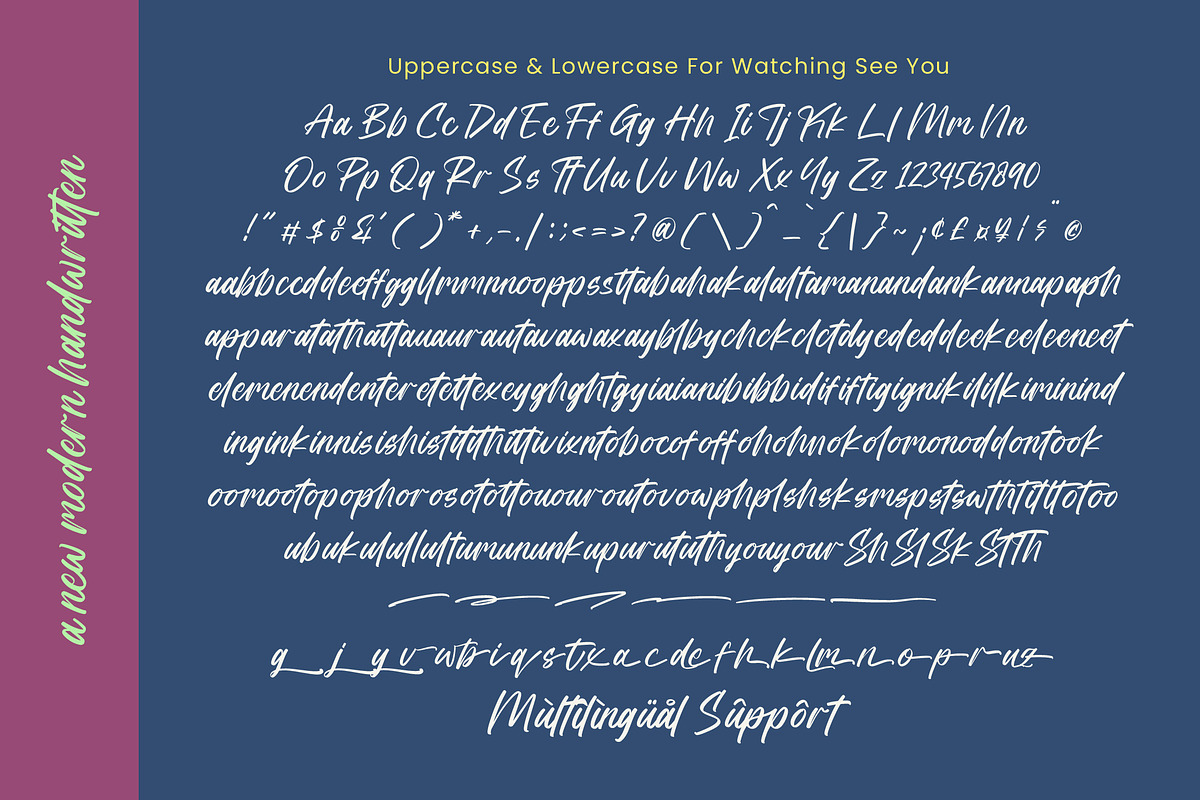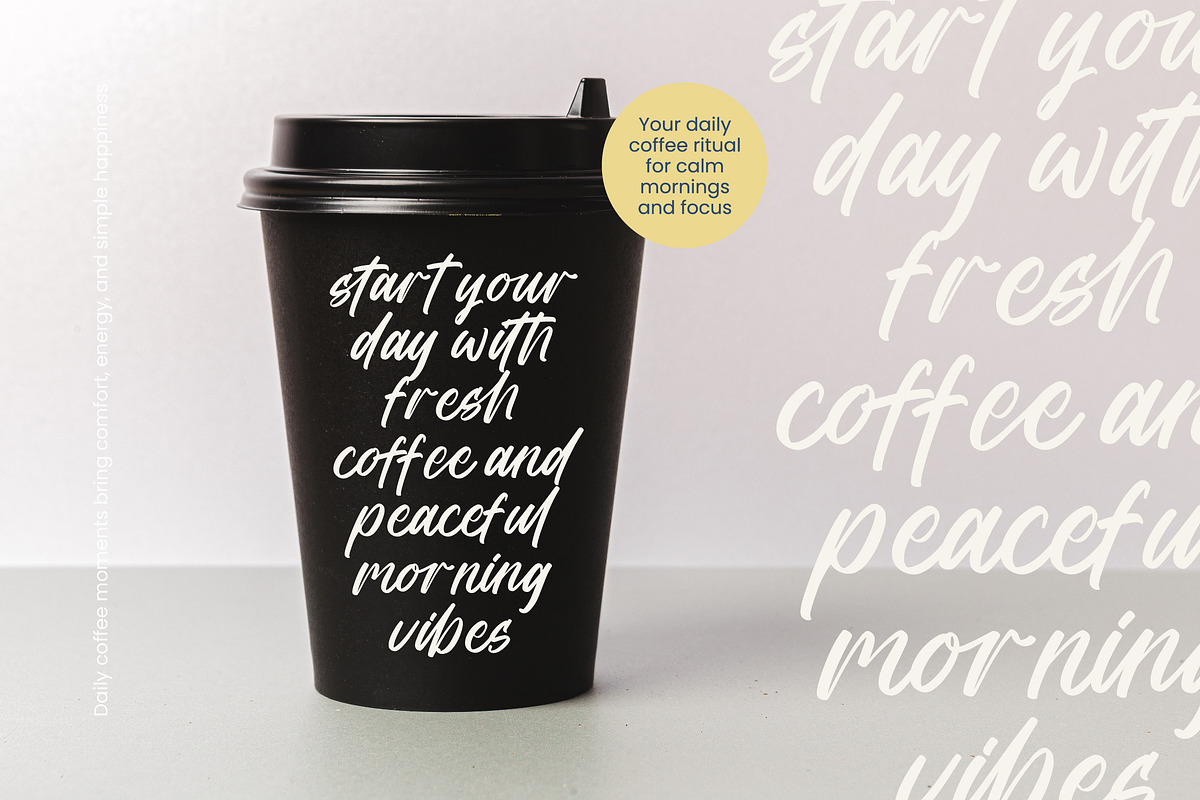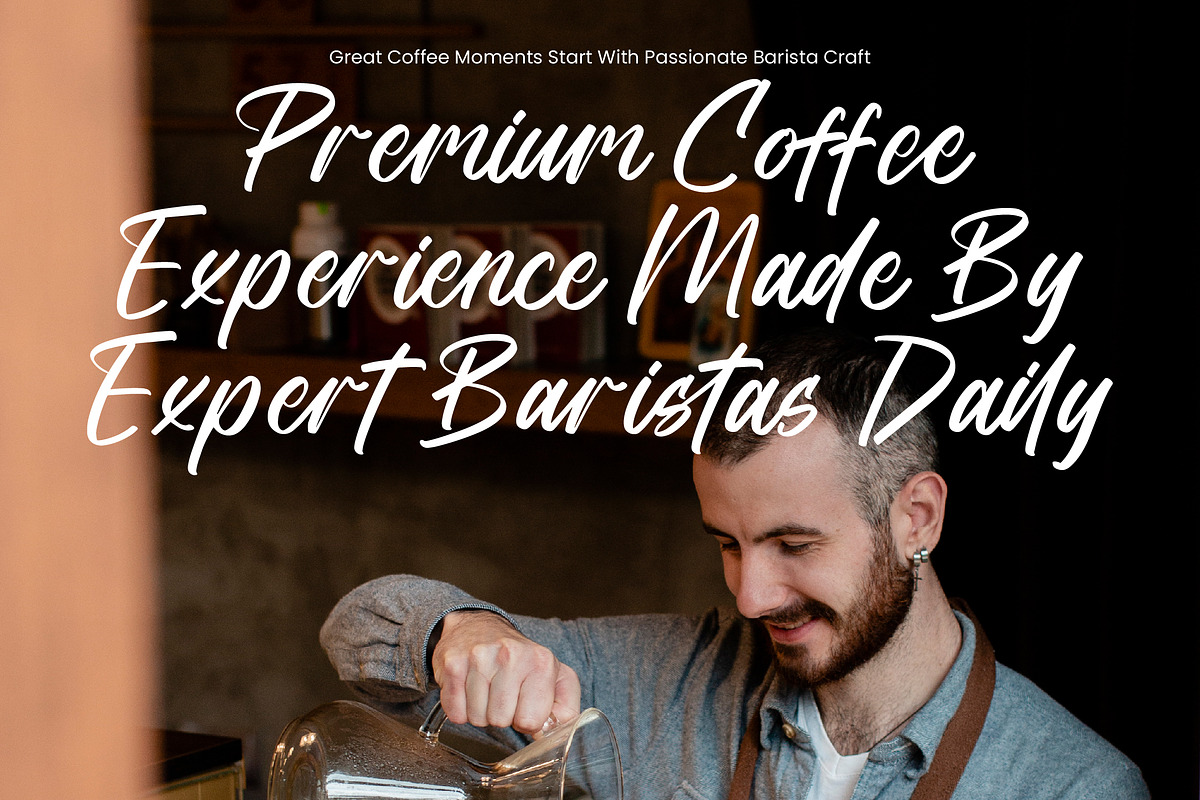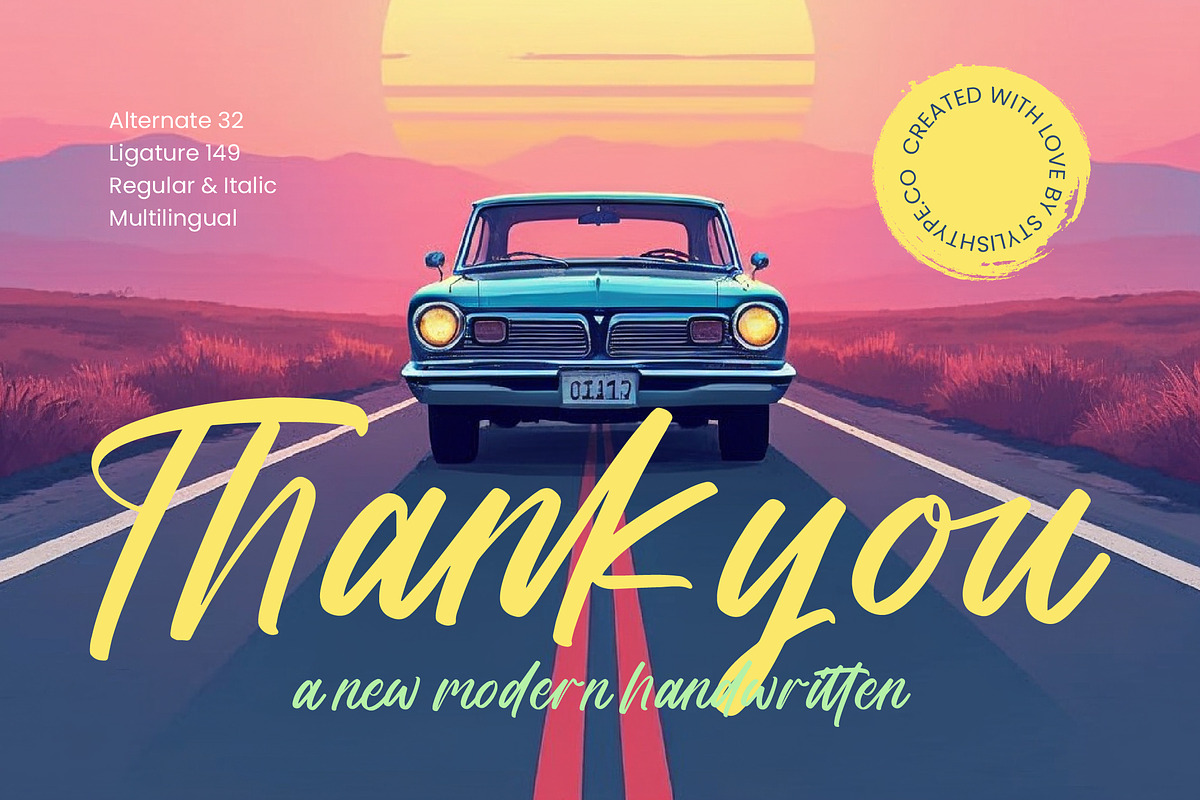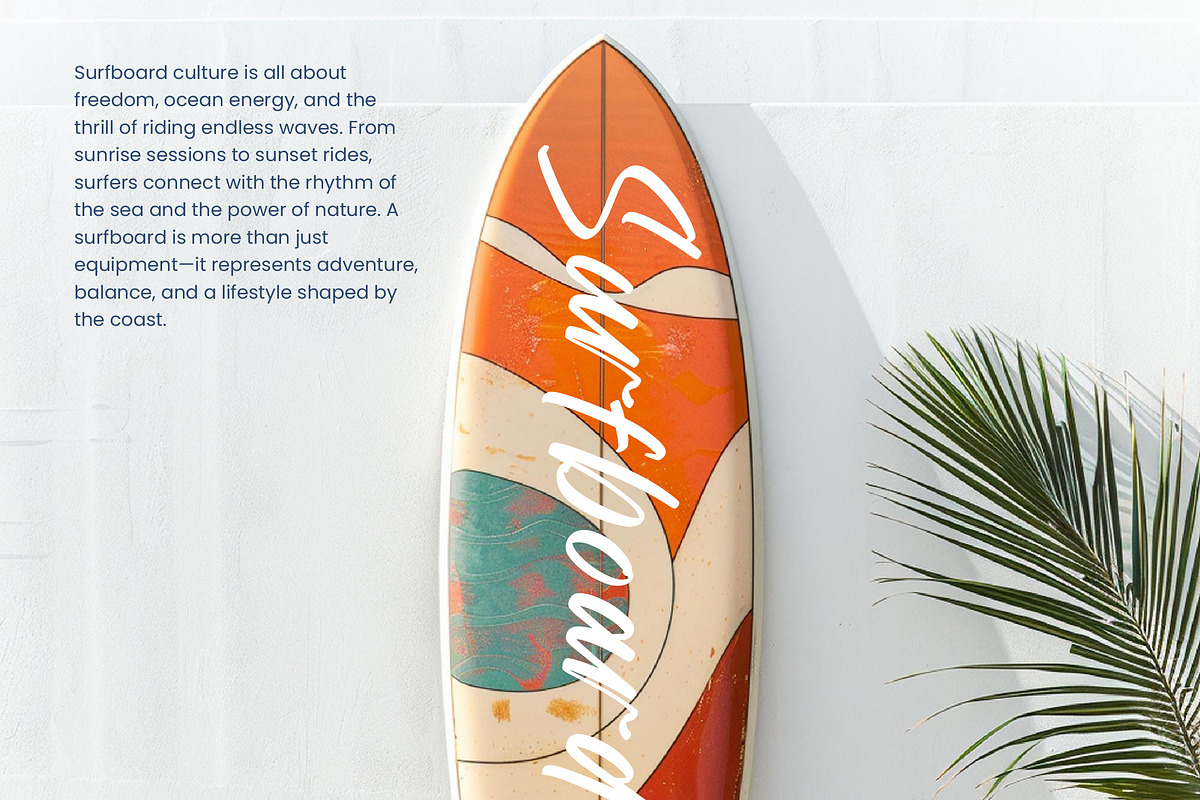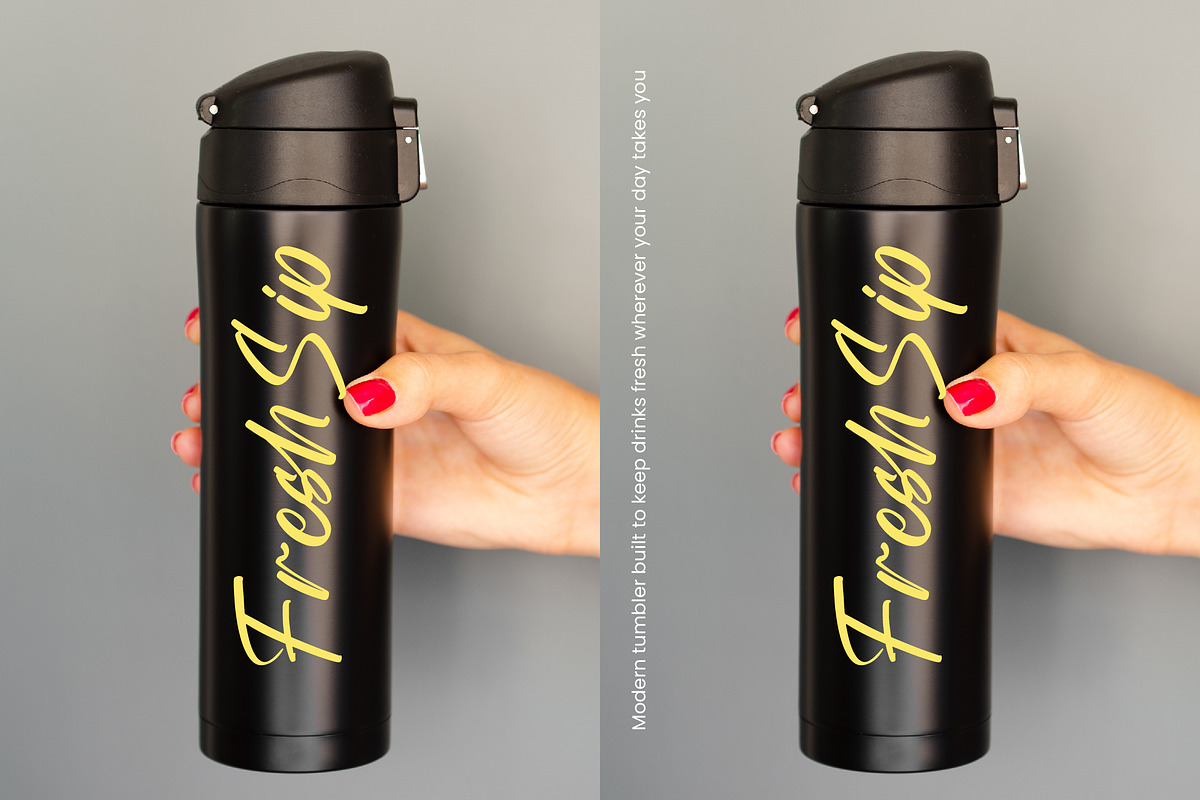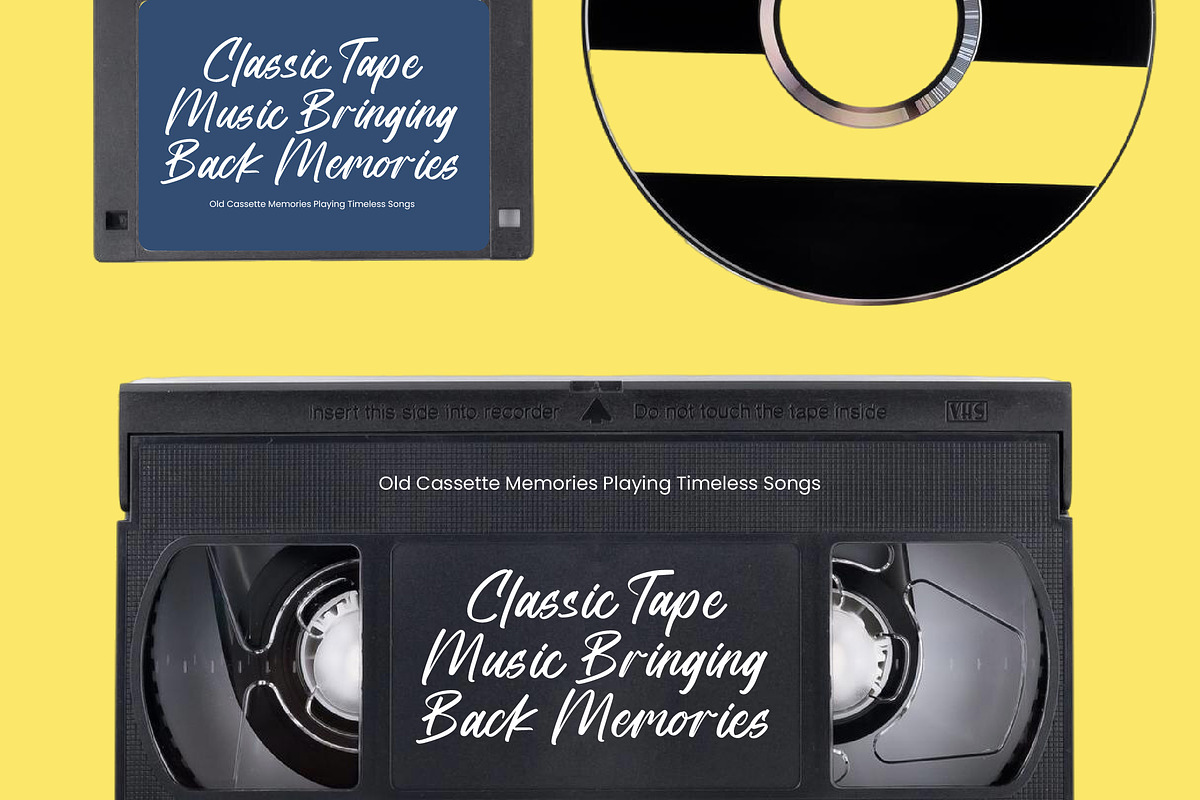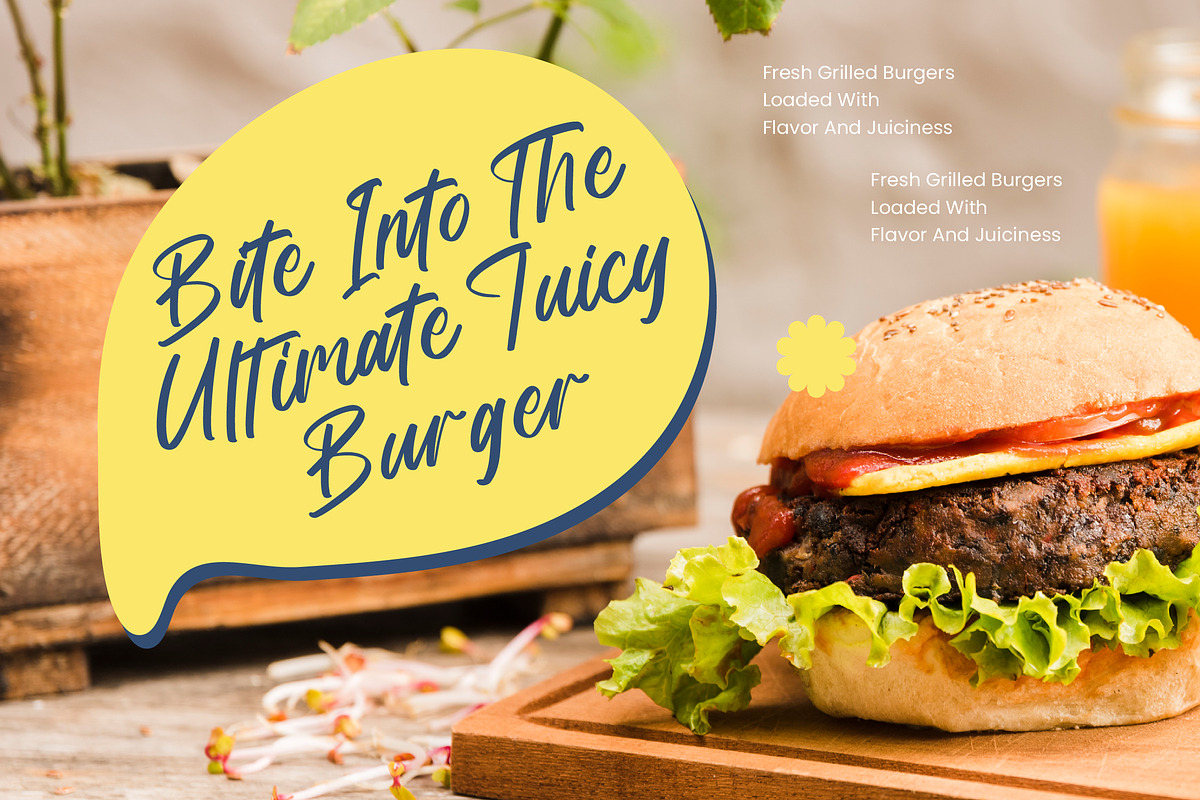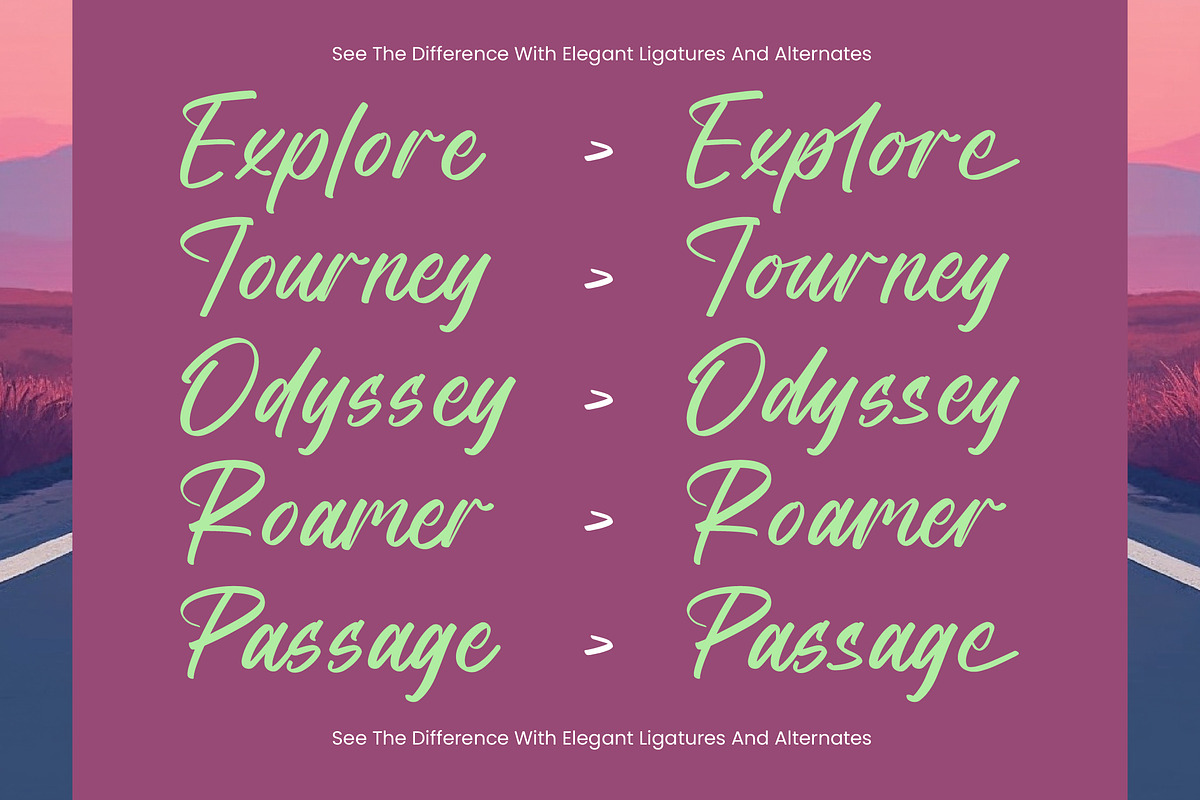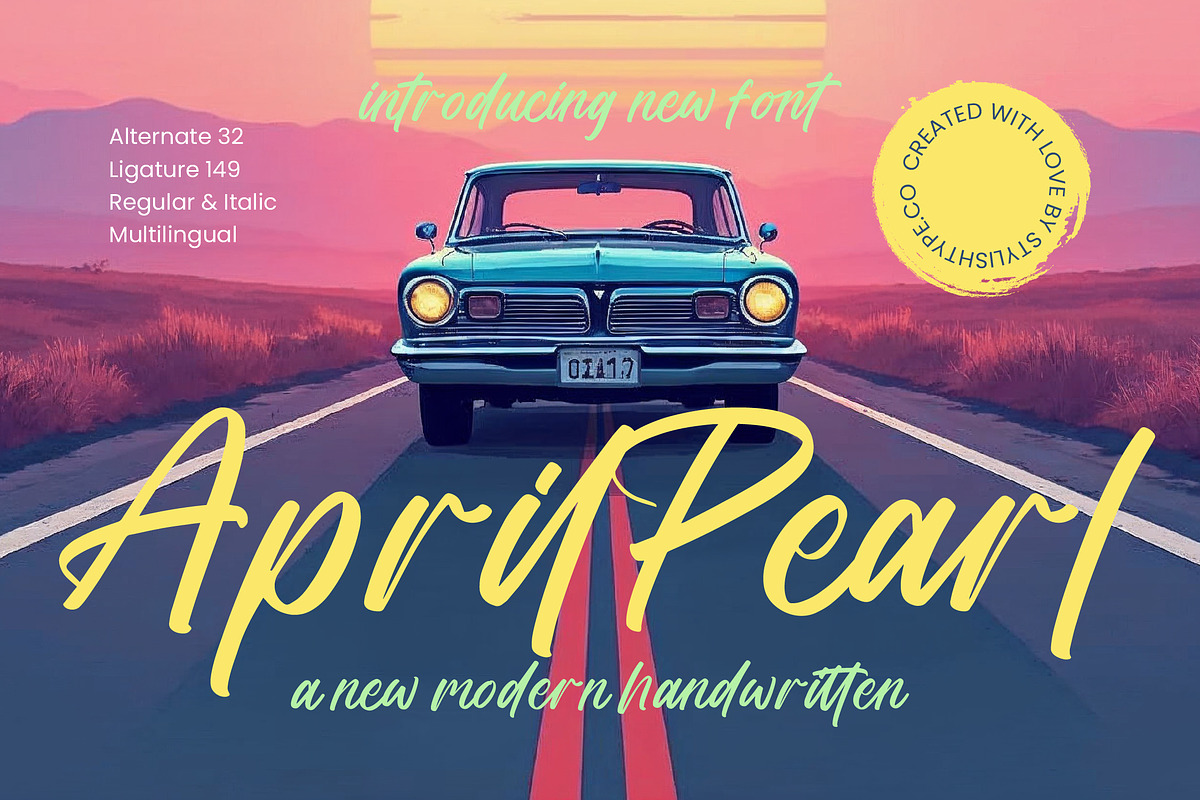
April Pearl Modern Handwritten
April Pearl - New Modern Handwritten , Capture the essence of effortless sophistication with April Pearl, a masterfully crafted typeface that brings a touch of human warmth to your most ambitious digital designs. This font serves as a bridge between classic penmanship and contemporary aesthetics, ensuring your message is delivered with both heart and high-style.
Inspired by the nostalgic warmth of a sunset drive along the coast, the aesthetic flows with the rhythm of a handwritten letter yet maintains a sharp, professional edge. It evokes a world of curated experiences, where every stroke tells a story of adventure, luxury, and the beauty of the present moment.
While it carries the fluid grace of a script, this typeface provides a significant branding impact that competes with any modern serif display or high-contrast serif on the market. It functions as a premier editorial font, delivering the luxury typography required to elevate high-end identities and visual narratives beyond the ordinary.
Perfectly aligned with the current modern serif trend, this character provides a softer, more intimate alternative to standard editorial display fonts. Its character-driven typography allows designers to embrace a more organic look that is currently dominating the visual landscape of lifestyle and wellness industries.
From a bespoke logo design to cohesive corporate branding, this versatile script excels in every environment including high-fashion packaging and sophisticated editorial spreads. It is the ultimate choice for romantic wedding stationery and fashion lookbooks that require a signature aesthetic with professional legibility.
Technical excellence is at the core of this release, featuring 149 decorative ligatures and 32 unique alternates to provide a truly custom feel. The font includes comprehensive multilingual support and international characters alongside fluid swashes, allowing for seamless creative expression across global markets.